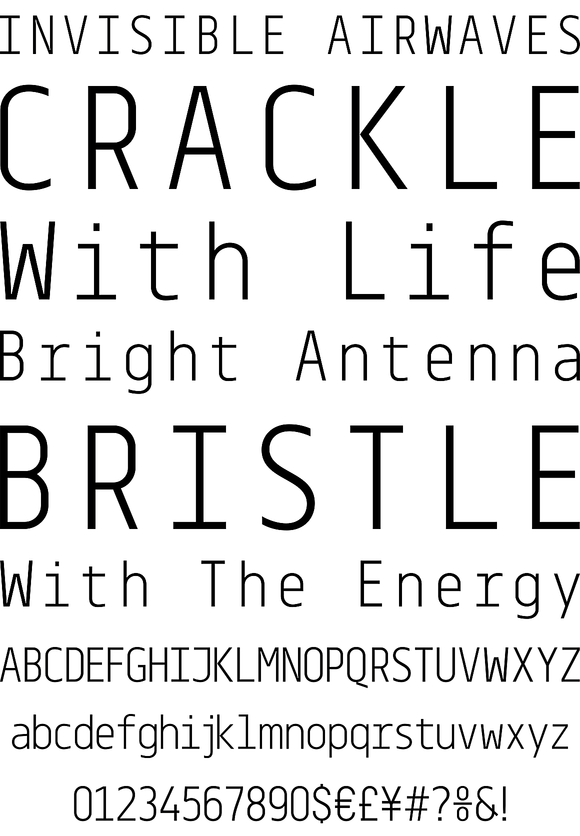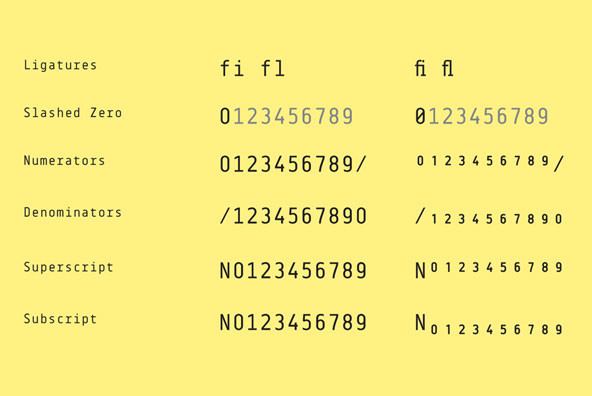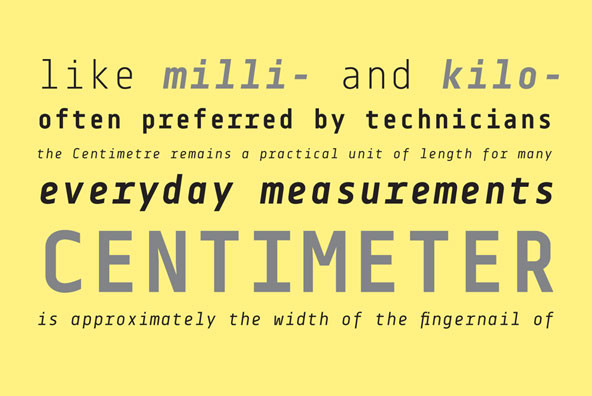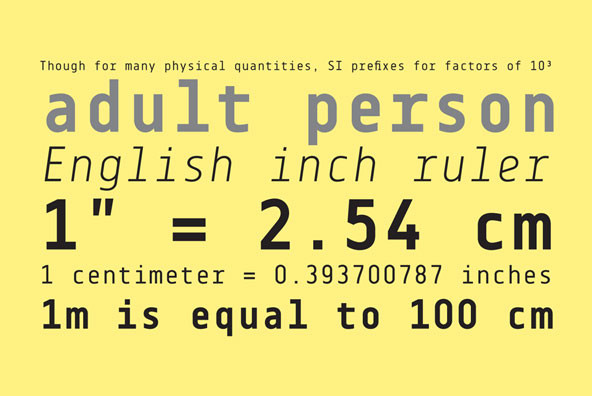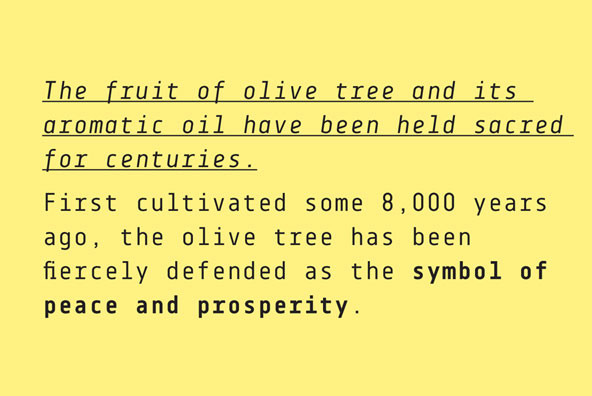
Centima Mono is a subfamily addition to Centima type family. Centima Mono is a condensed geometric monospaced san serif, built in six styles. The typeface is intended for use in display sizes, but also is quite legible in text and is well suited for editorial and brand design. Centima Mono is released in OpenType format with support for most European languages and includes some opentype features.